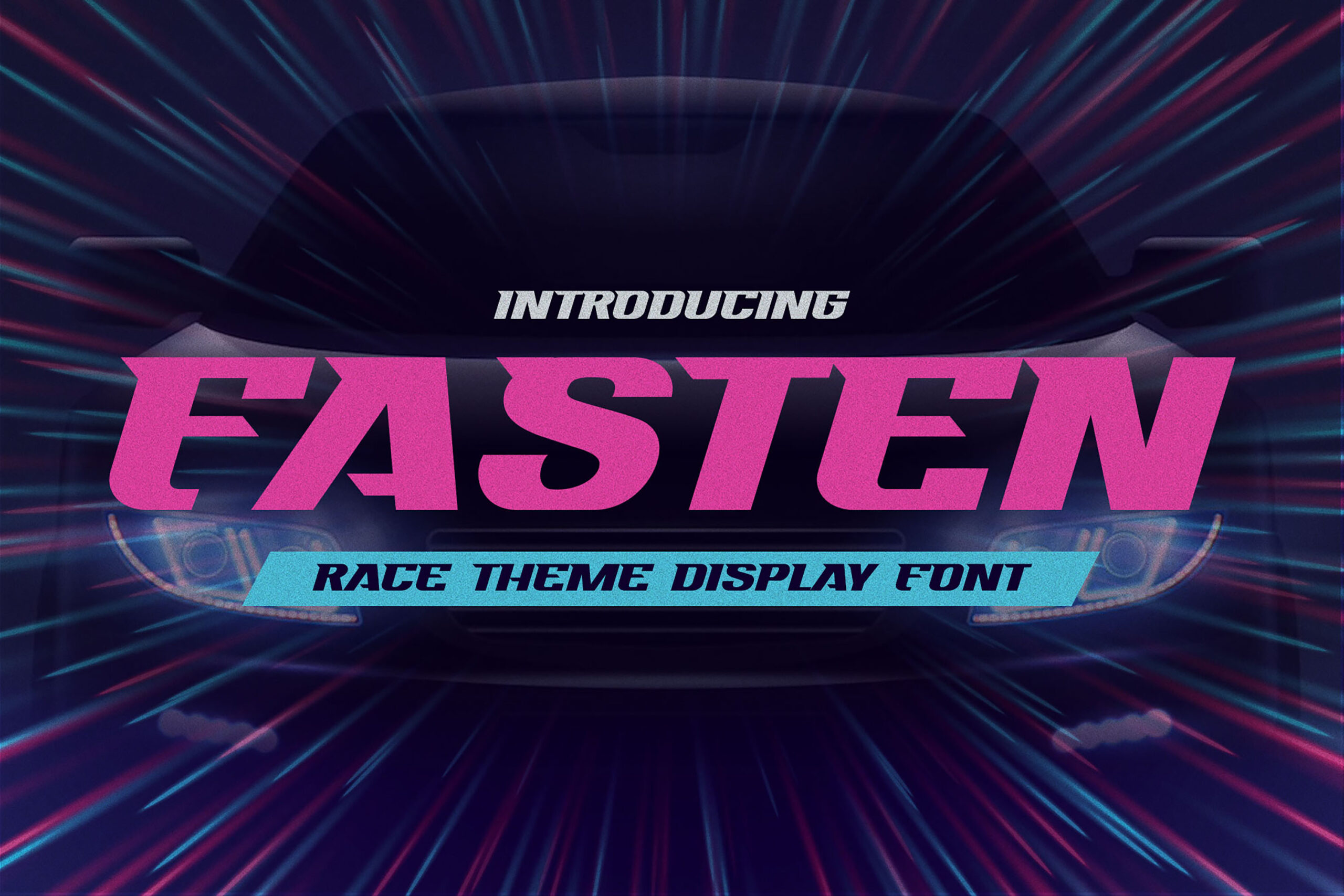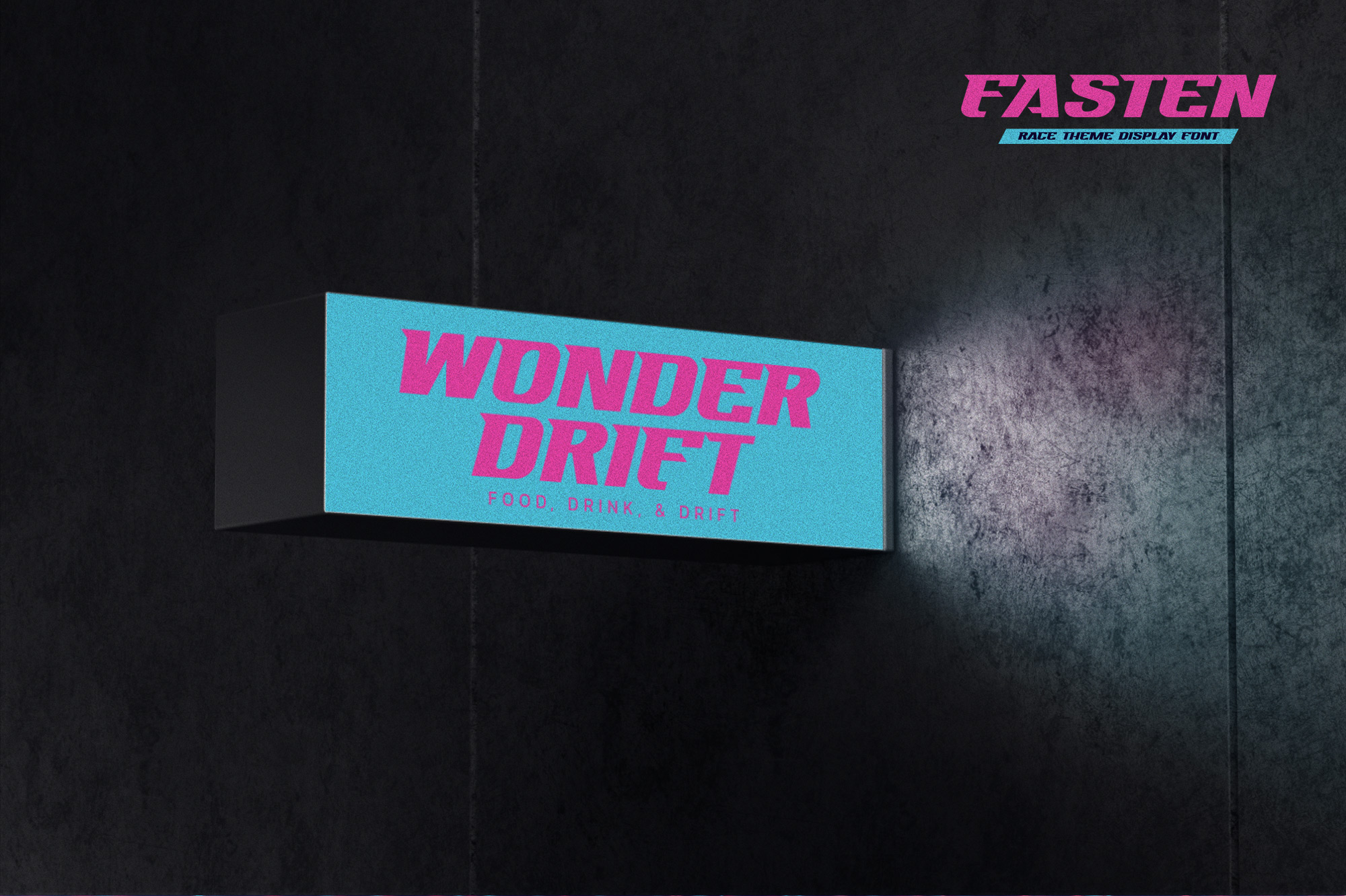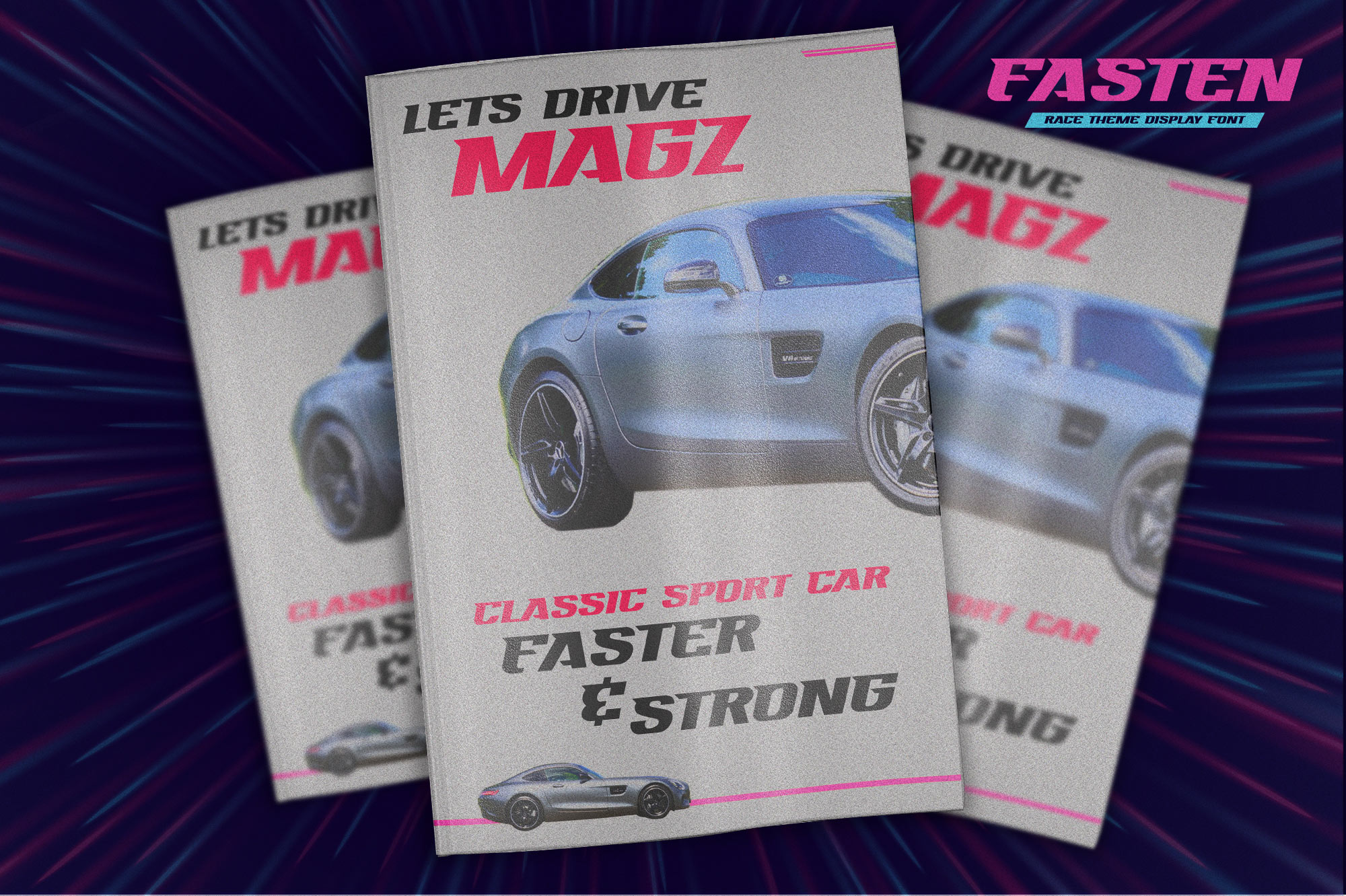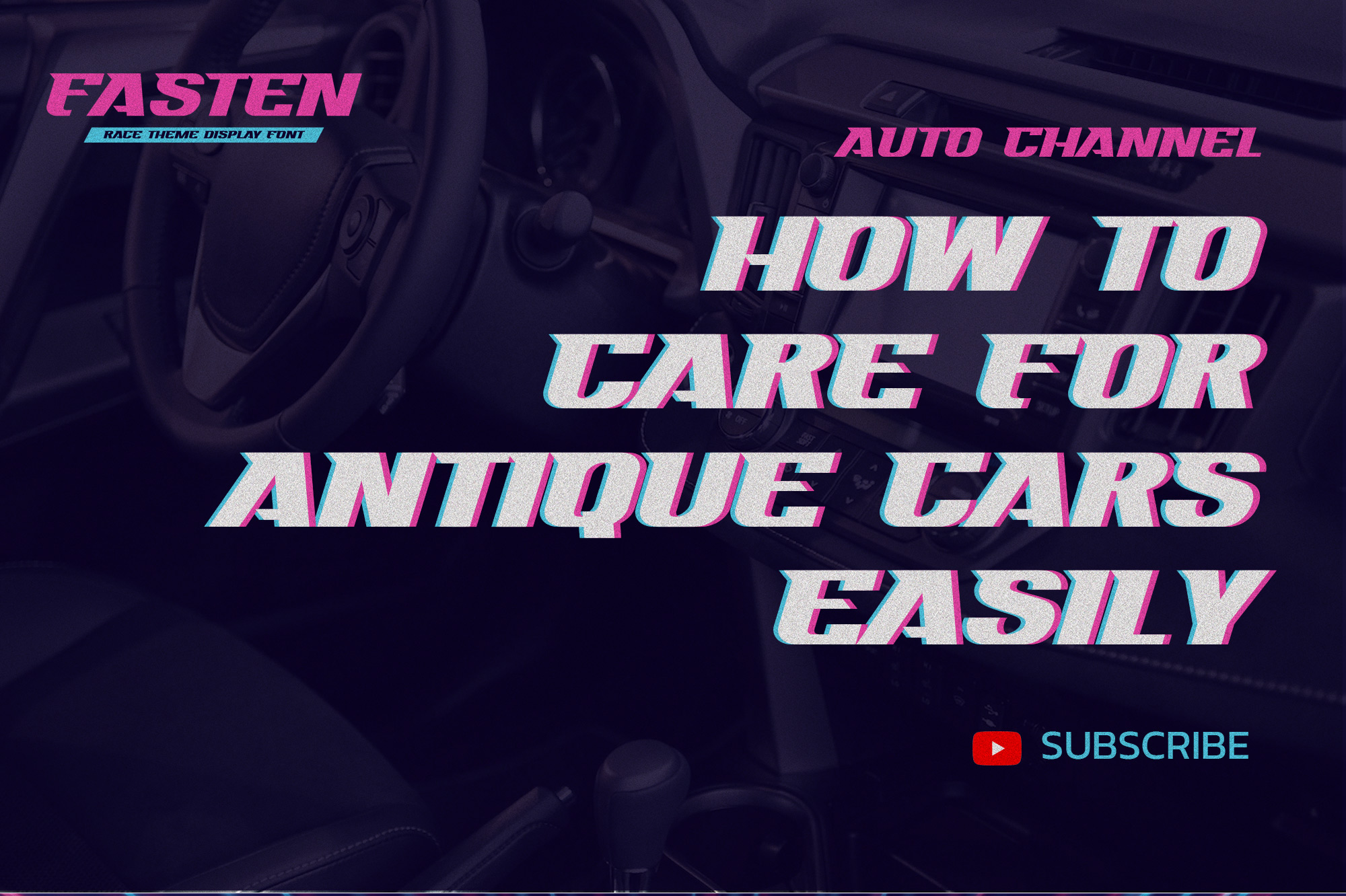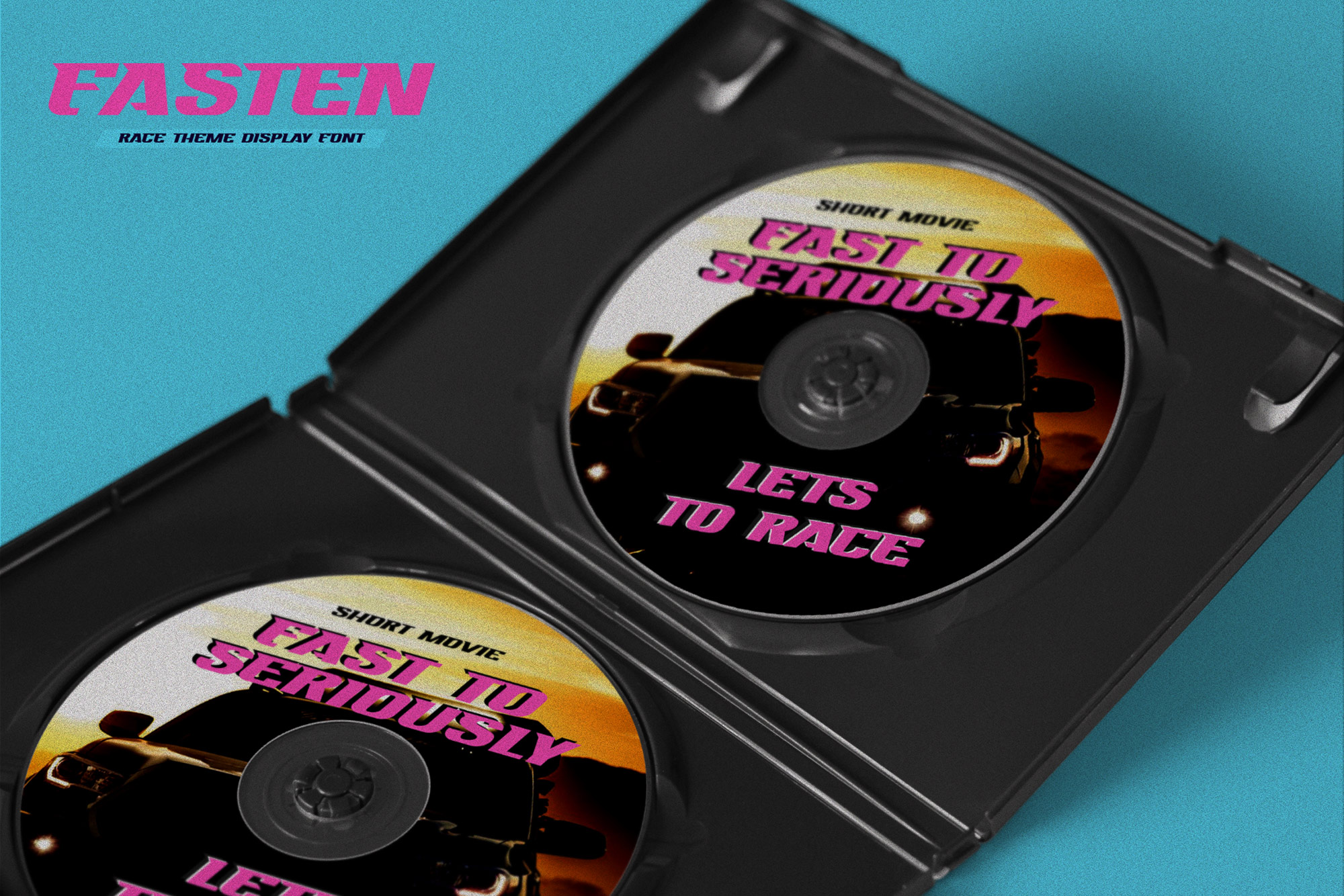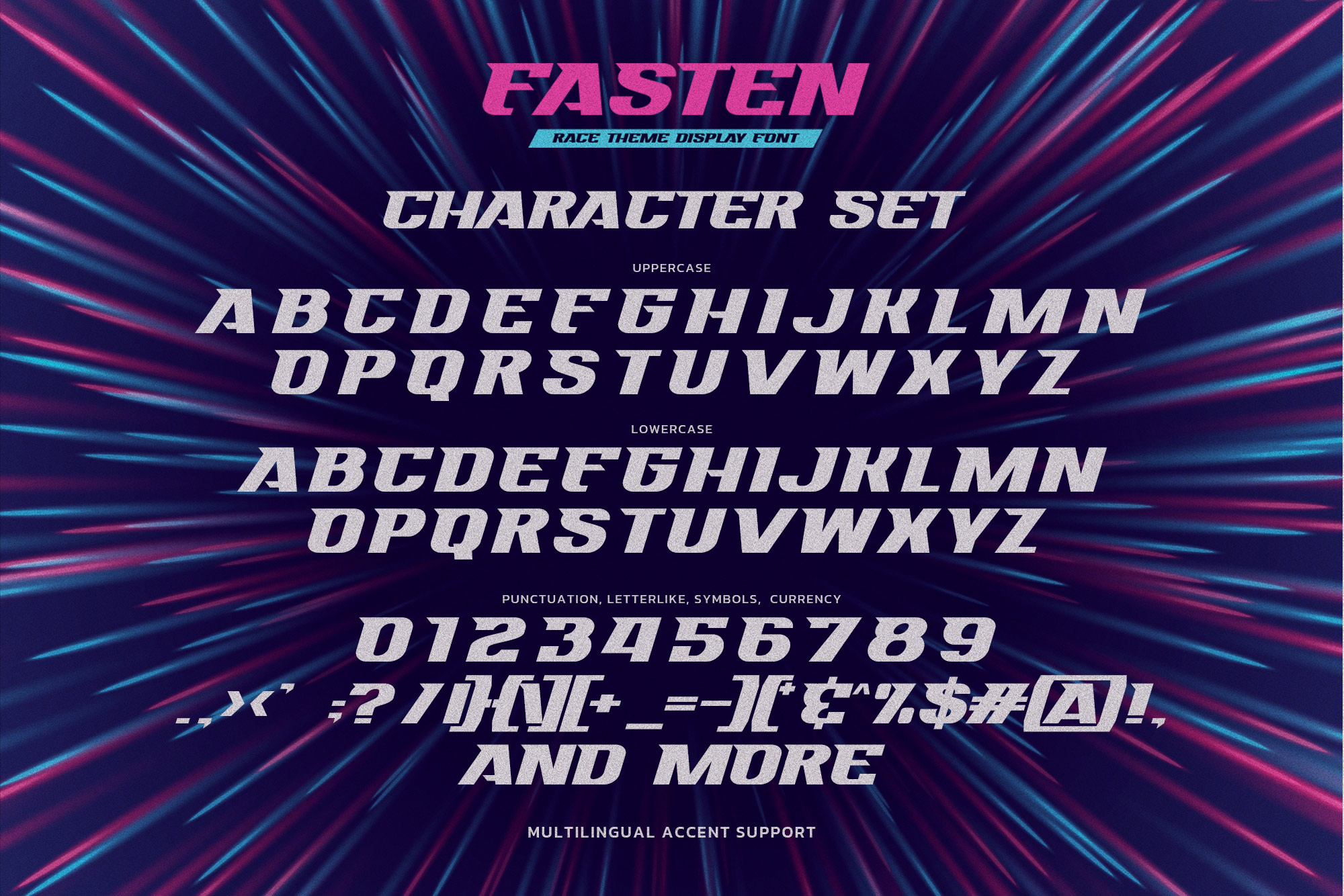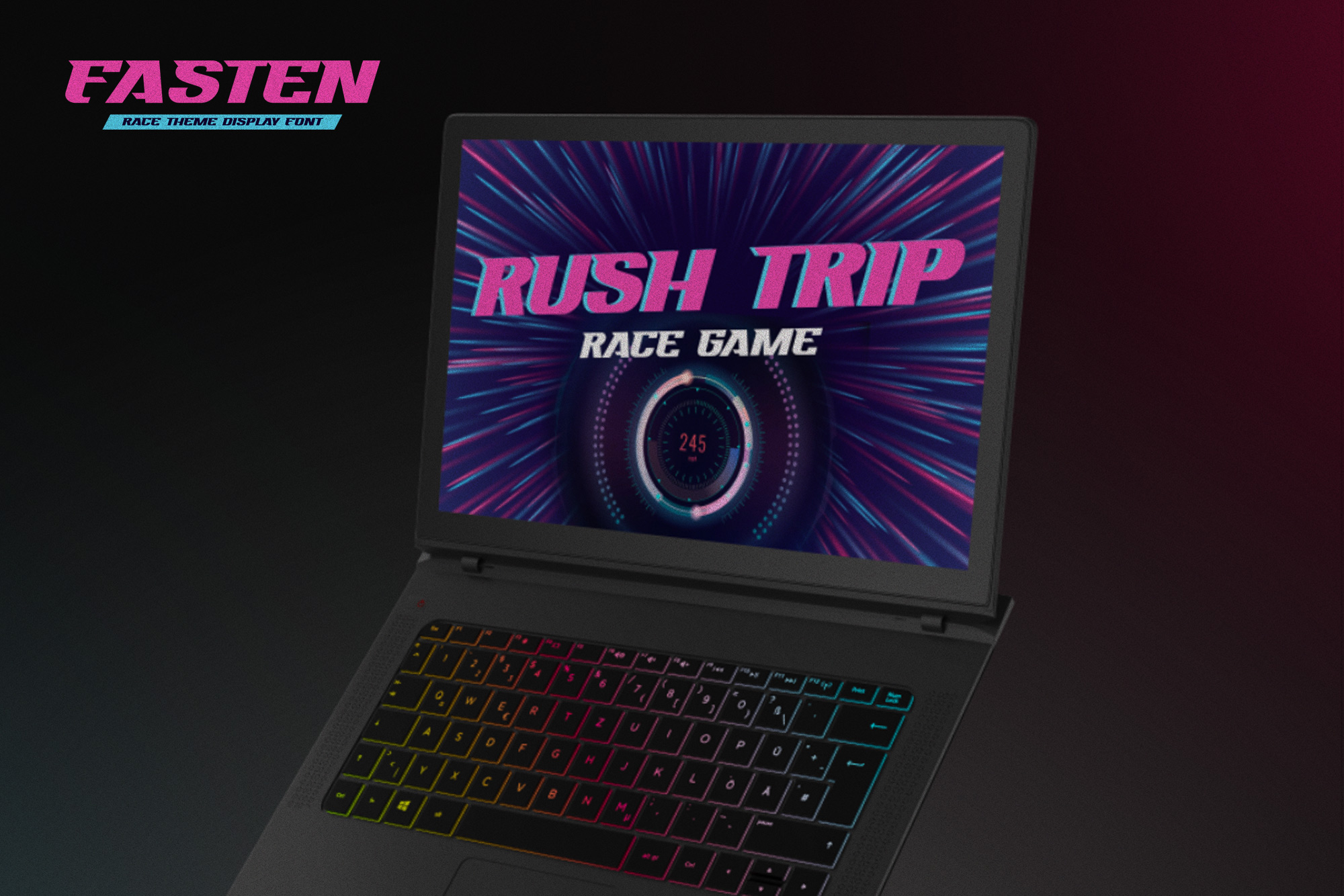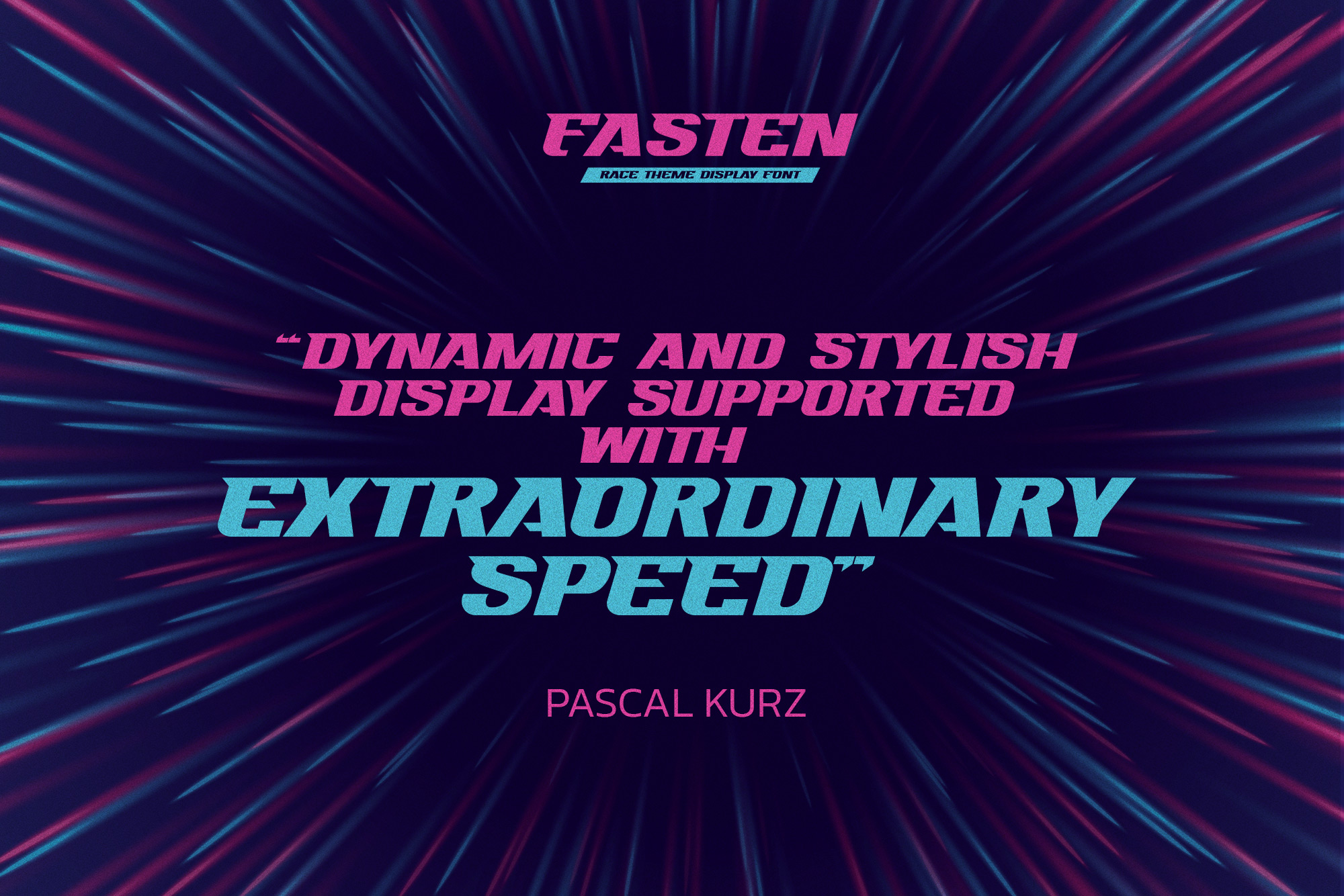
FASTEN – Race Theme Display Font , modern style and dramatic movement that is written casually and quickly.
The best for labels, poster, project designs look modern, authentic and unique. It’s perfect for labels, quotes, posters, DIY projects, branding, packaging, greeting cards, websites, photography overlays, signs, scrapbooking, tags and so much more! That is why FASTEN has a textured, and strong characteristic more natural look.